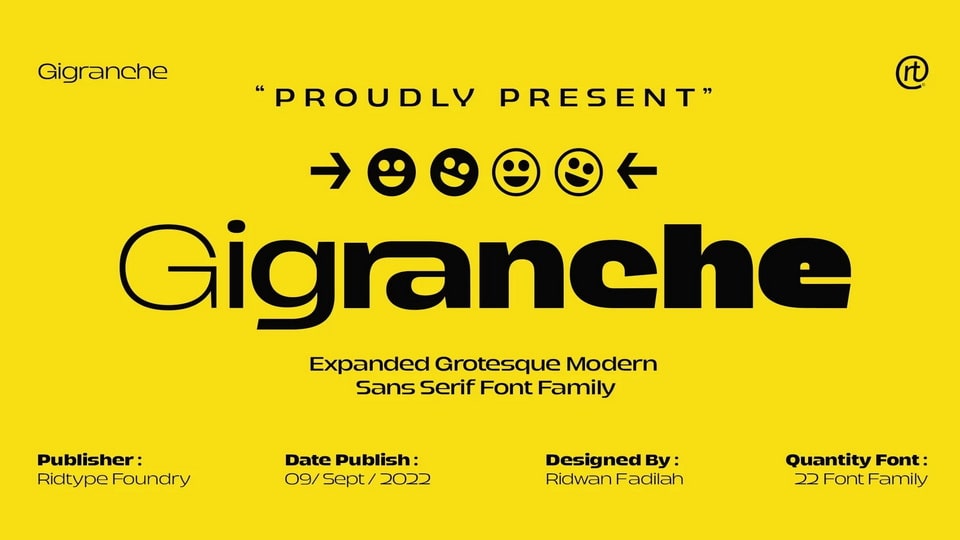
Download Gigranche font, a modern expanded grotesque typeface with a very strong and bold appearance for digital manufacture and printing industry. Gigranche font is inspired by streetwear which relies on courage, art, and strength.
Designer: Ridwan Fadilah